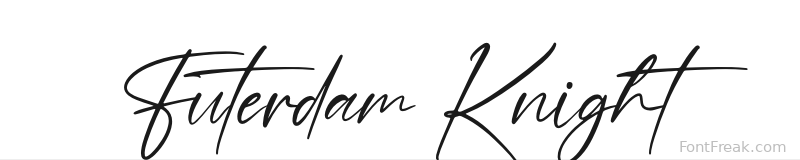
Futerdam Knight
About Futerdam Knight
Futerdam Knight, created by Perspectype Studio in 2021, is a stunning display font that captures attention with its unique blend of elegance and modern flair. This font falls into the category of decorative scripts, characterized by its flowing, cursive strokes that evoke a sense of sophistication. The stroke weight varies, offering a dynamic contrast that enhances the visual interest, while the spacing is thoughtfully designed to maintain readability even in more extensive text layouts.
The Futerdam Knight font is perfect for a range of applications. Its stylish design makes it an excellent choice for wedding invitations, where it can convey romance and elegance. Additionally, it shines in the realm of movie posters, lending a dramatic flair that draws viewers in. Restaurant menus can also benefit from its artistic touch, helping to create an inviting atmosphere that reflects the culinary experience. Furthermore, content creators can leverage this font in social media graphics or branding projects, ensuring their visuals stand out in a crowded digital landscape.
The target audience for the Futerdam Knight font includes graphic designers looking for unique typefaces to elevate their projects, small business owners who want to create memorable branding, and content creators who aim to captivate their audience with striking visuals.
What sets the Futerdam Knight font apart is its ability to balance artistic expression with practical usability. It is not just a font; it is a statement piece that can elevate any design project. With the Futerdam Knight font free download, users can easily incorporate this beautiful typeface into their creative endeavors, ensuring their work is both memorable and visually appealing.